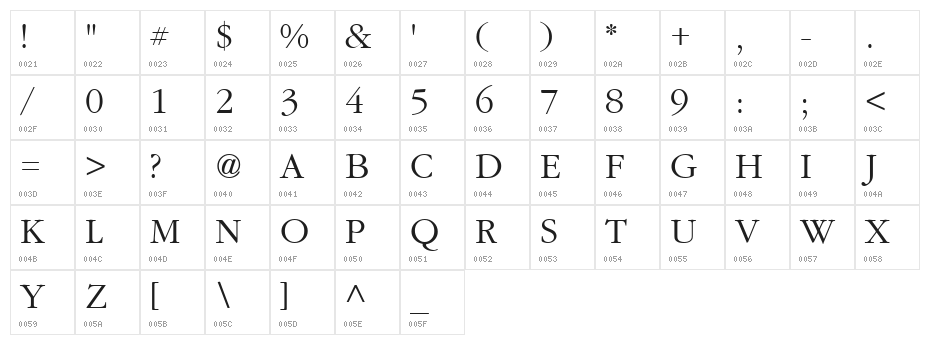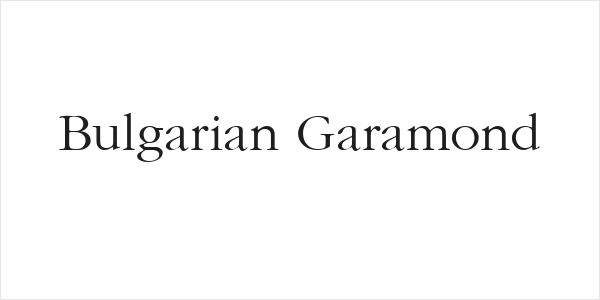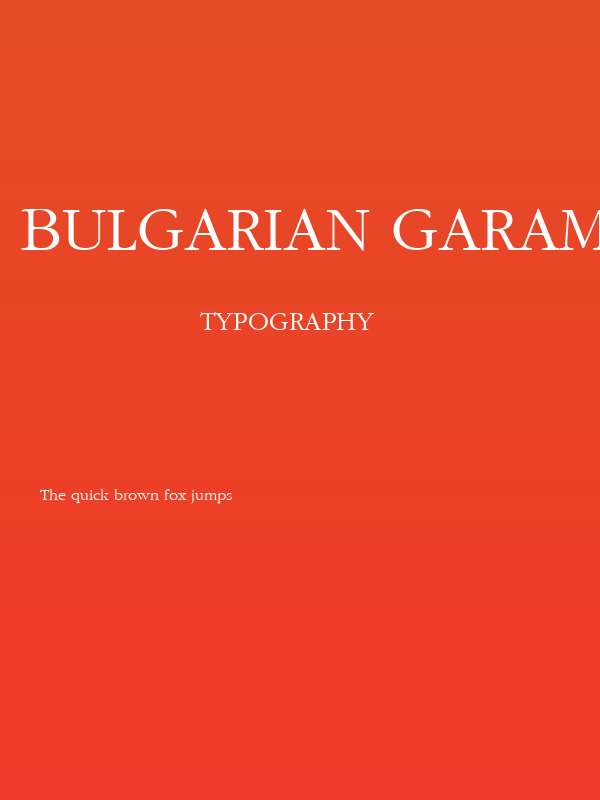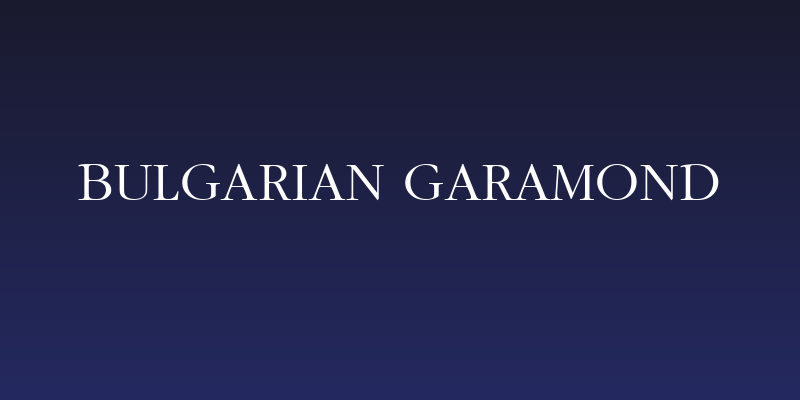
Bulgarian Garamond Font
Bulgarian Garamond Description
This font exhibits a classic serif style with elegant and refined strokes. The uppercase letters are tall and stately, with a slight contrast in stroke thickness that adds to their sophistication. The lowercase letters maintain a consistent style, with smooth curves and a balanced appearance. The numerals are clear and distinct, making them easy to read. Special characters are well-integrated, maintaining the overall aesthetic of the font. The design is timeless, suitable for conveying a sense of tradition and reliability.
| Use Case | Body text, Headlines, Editorial design |
| Proposed Projects | Ideal for book publishing, formal invitations, branding for luxury products, and editorial design. |